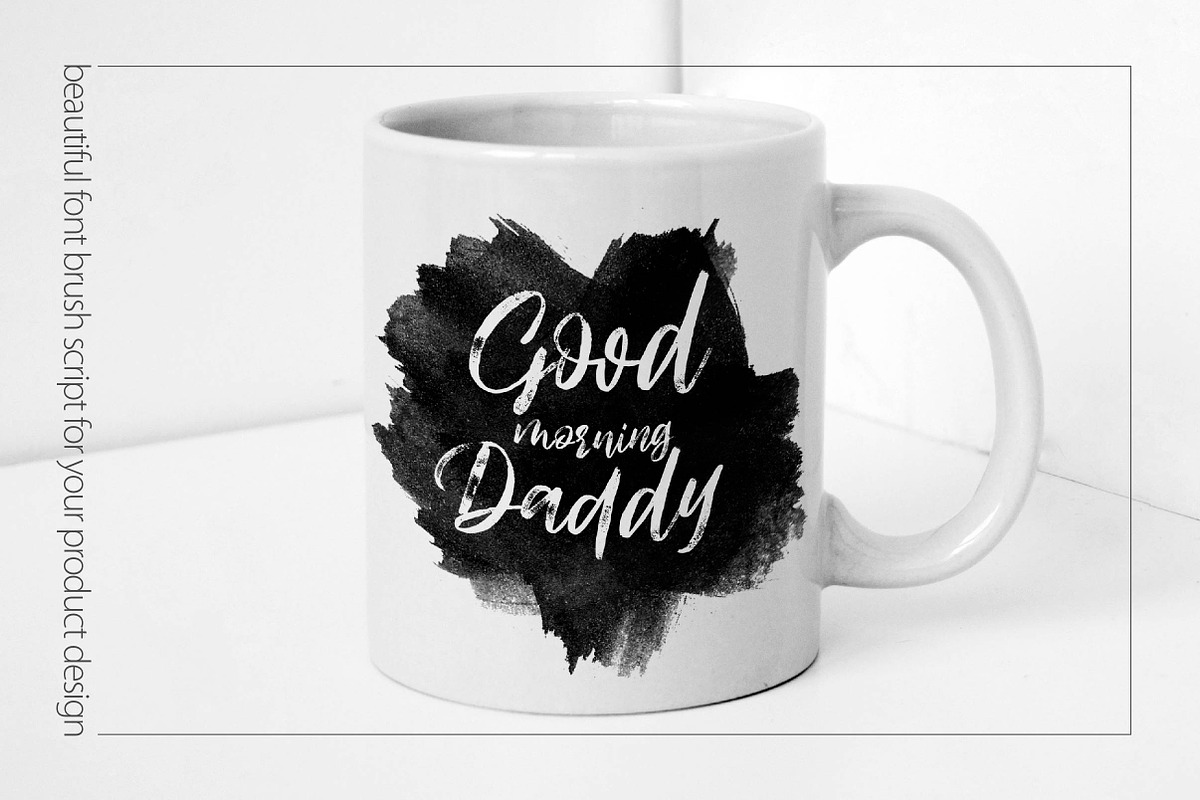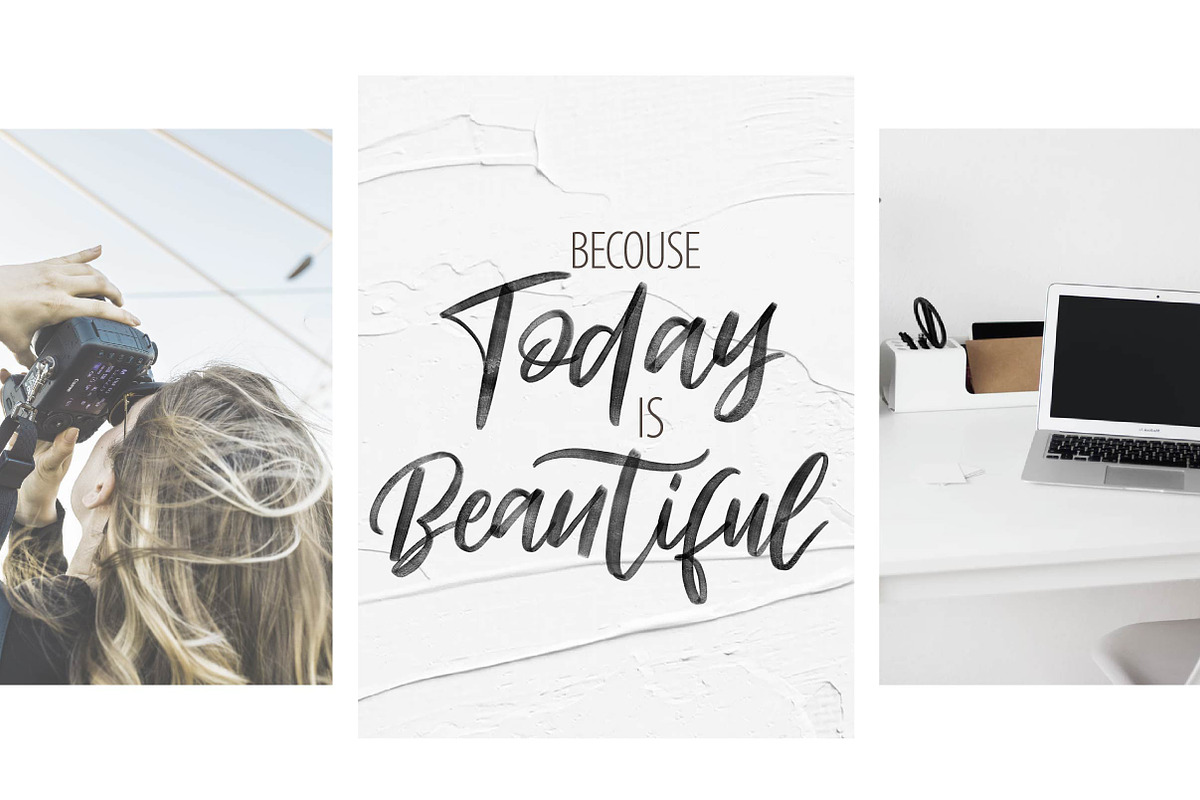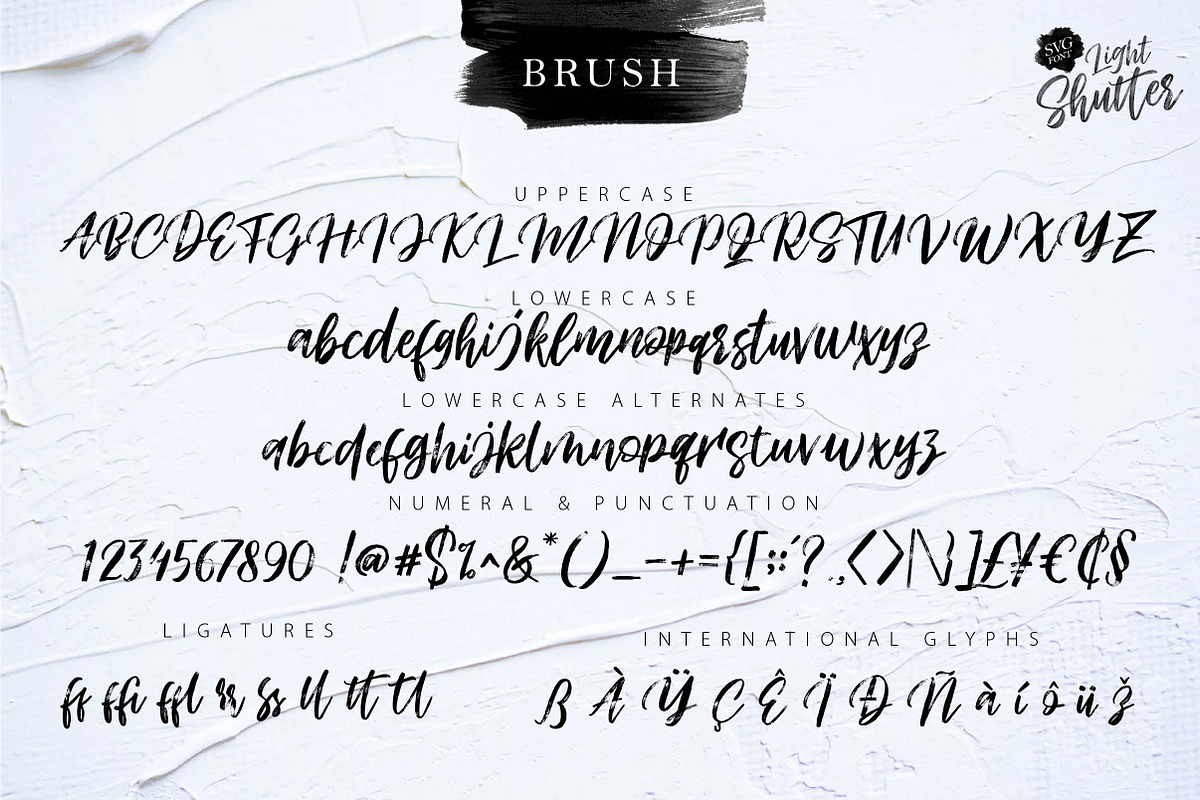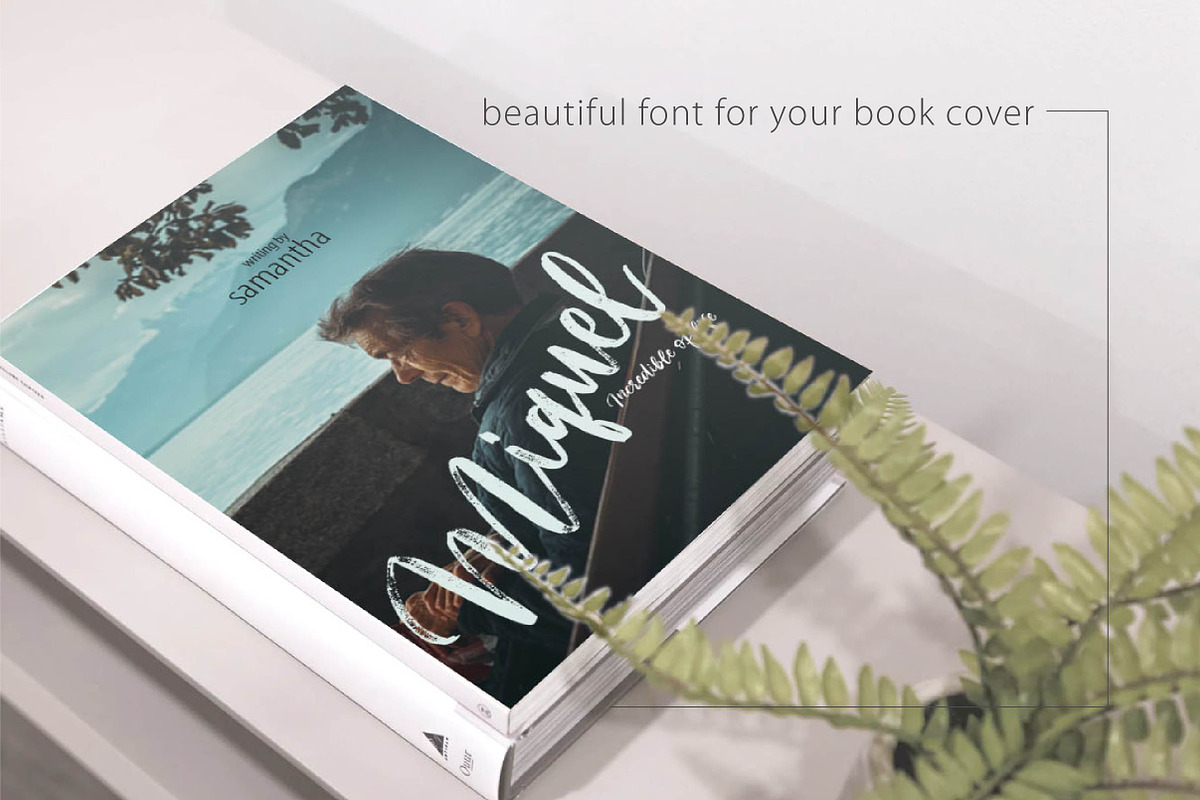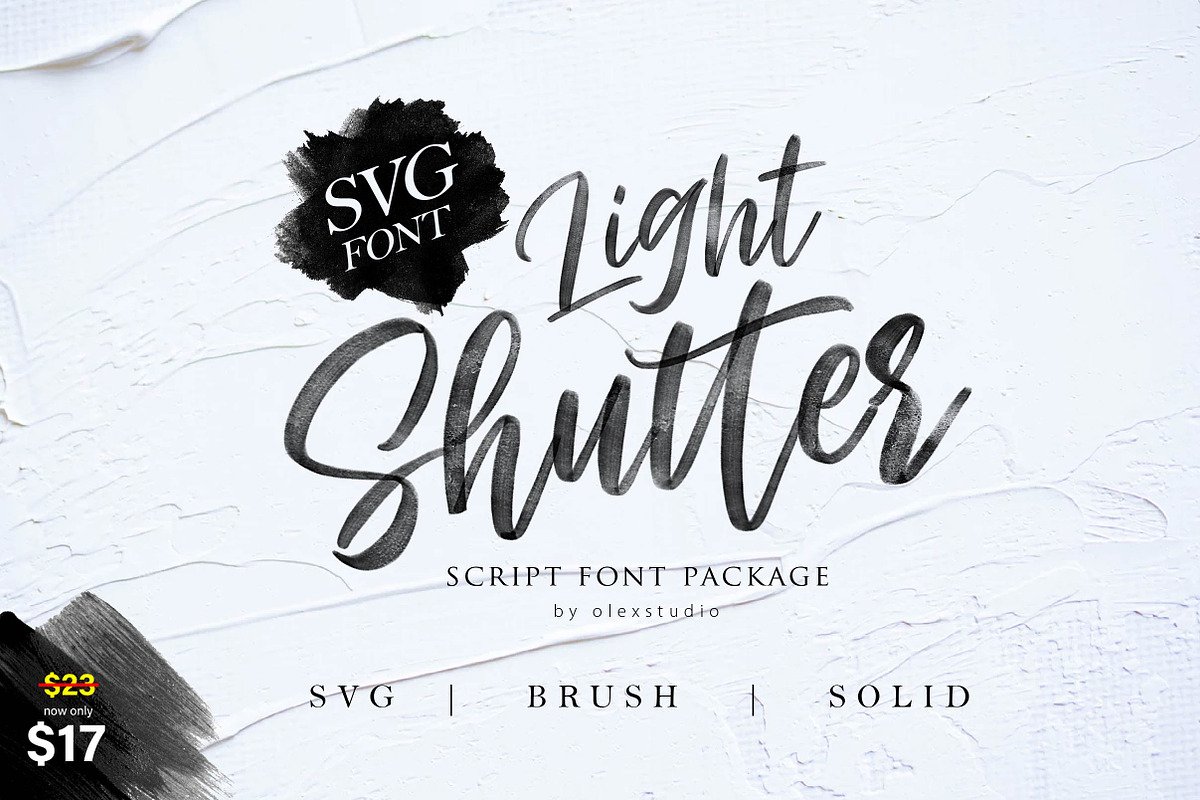
Light Shutter + SVG Font
Light Shutter Font is a beautiful Modern Handlettered font Typeface, This Font will look gorgeous on all your designs, wedding invites, branding materials, logo's, t-shirt, poster, business cards, quotes and all project design other.
Light Shutter Font contains standard characters, lowercase, Lowercase Alternates, Uppercase, numbers, punctuation, ligatures and international glyphs. You will receive SVG Format, OTF and TTF files